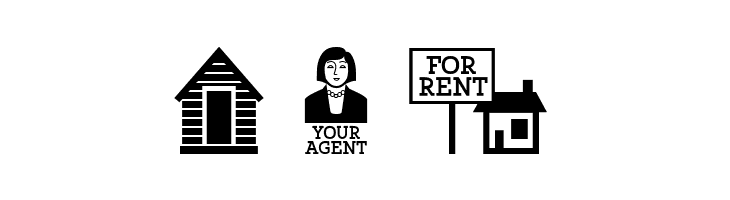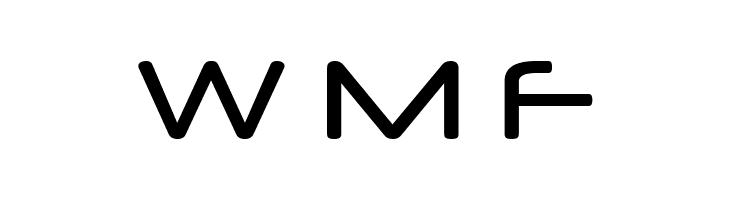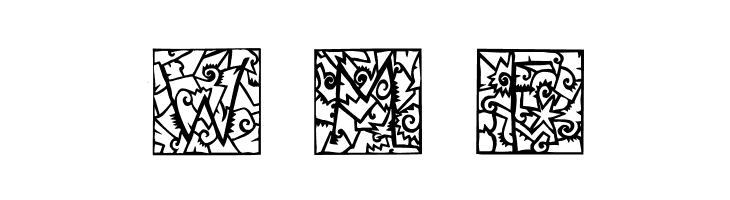
A bold, brush-textured font with a dynamic, artistic style.
Modern, bold pictogram set for real estate and property themes.
An ultra-condensed, elongated font with a modern, geometric style.
A futuristic, geometric font with rounded edges and a sleek, modern design.
A futuristic, geometric font with rounded letterforms and a sleek, modern design.
A bold, geometric font with sharp angles and circular cutouts, ideal for decorative use.
A decorative set of illustrated headshots used in place of letters and numbers.
A jagged, fragmented font with sharp, angular strokes for a chaotic and dynamic look.
A playful, bold font with characters enclosed in circles, offering a unique and cohesive look.
A bold, geometric font with a futuristic and edgy design.
A bold, futuristic font with geometric shapes and a modern aesthetic.
A bold, block-like font with a strong, impactful presence.
A dynamic cursive font with bold strokes and elegant flow.
An ornate, decorative font with intricate, stained glass-like designs.
A thin, modern sans-serif font with a clean and minimalist design.
A thin, italic sans-serif font with a modern and elegant style.
A modern, semi-bold italic sans-serif font with clean lines and excellent readability.
A sleek, modern italic font with dynamic curves and clean lines.
A modern, bold italic font with smooth strokes and medium contrast.
A modern italic font with smooth curves and clean lines, perfect for dynamic and elegant designs.
A bold, modern sans-serif font with clean lines and excellent readability.
A bold, italicized font with a modern and sleek design.
A futuristic, geometric font with clean lines and a minimalist style.
A playful, dripping font with a dynamic, hand-drawn style.
An energetic, italic font with jagged, textured strokes.
A sleek, modern italic font with geometric shapes and consistent stroke widths.
A modern, semi-bold italic sans-serif font with clean, geometric lines.
A sleek, extra-light italic font with a modern and sophisticated design.
A bold, modern sans-serif font with clean lines and a strong presence.
A bold, geometric italic typeface with a modern and dynamic style.
A modern, bold, geometric sans-serif font with uniform stroke widths.
A bold, modern sans-serif font with clean, geometric lines.
A sleek, modern, light italic sans-serif font with elegant slant and clarity.
A geometric sans-serif font with a clean, modern aesthetic and uniform stroke widths.